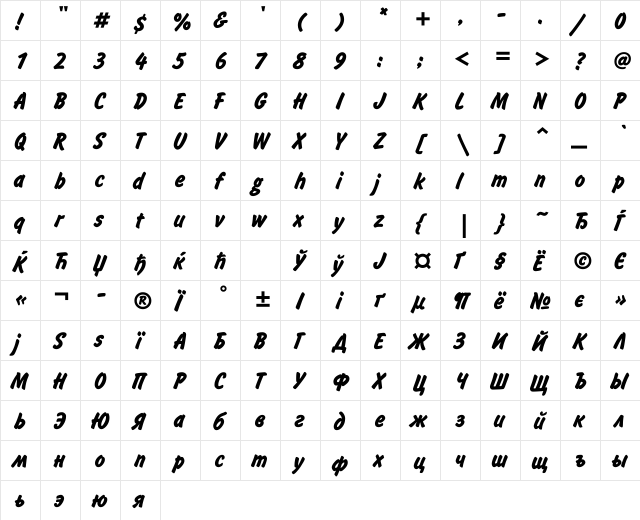
InformCTT Bold
Design Context for InformCTT Typeface
InformCTT is a composed and adaptable typeface that performs quietly and consistently across a wide range of design contexts. The heavy weight commands attention and anchors typographic hierarchies.